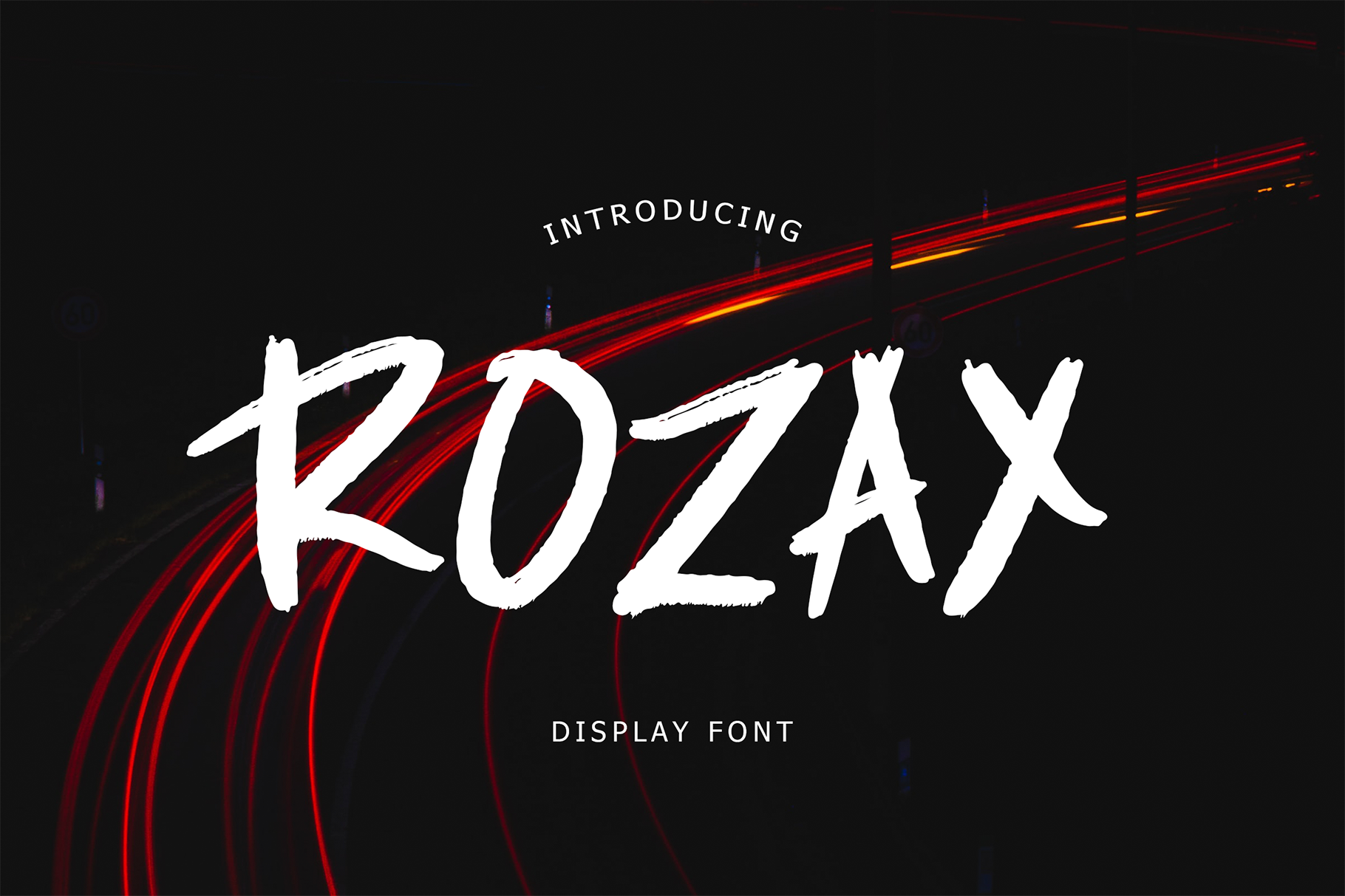
Rozax Display Font
Rozax font perfect for branding projects, logo, book cover design, tshirt designs, social media posts, advertisements, product packaging, product designs, label, watermark, invitation, stationery and any projects